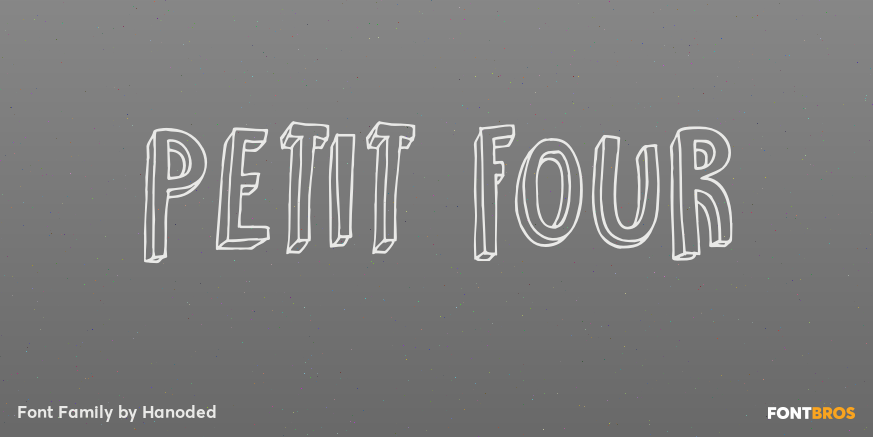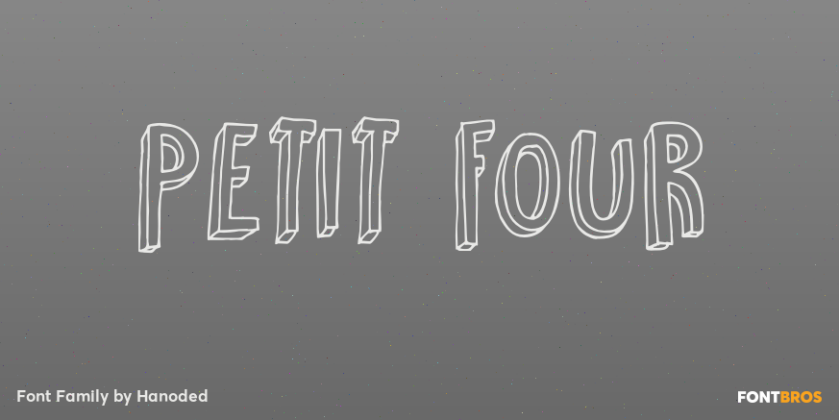
Petit Four
About Petit Four
A ?Petit Four? is a small, bite-sized, French pastry. The font before you is a bite-sized Hanoded original. It is hand made, fun to use and comes with a lot of calories. Like its namesake, use Petit Four sparingly and it will be the cherry on top of your…